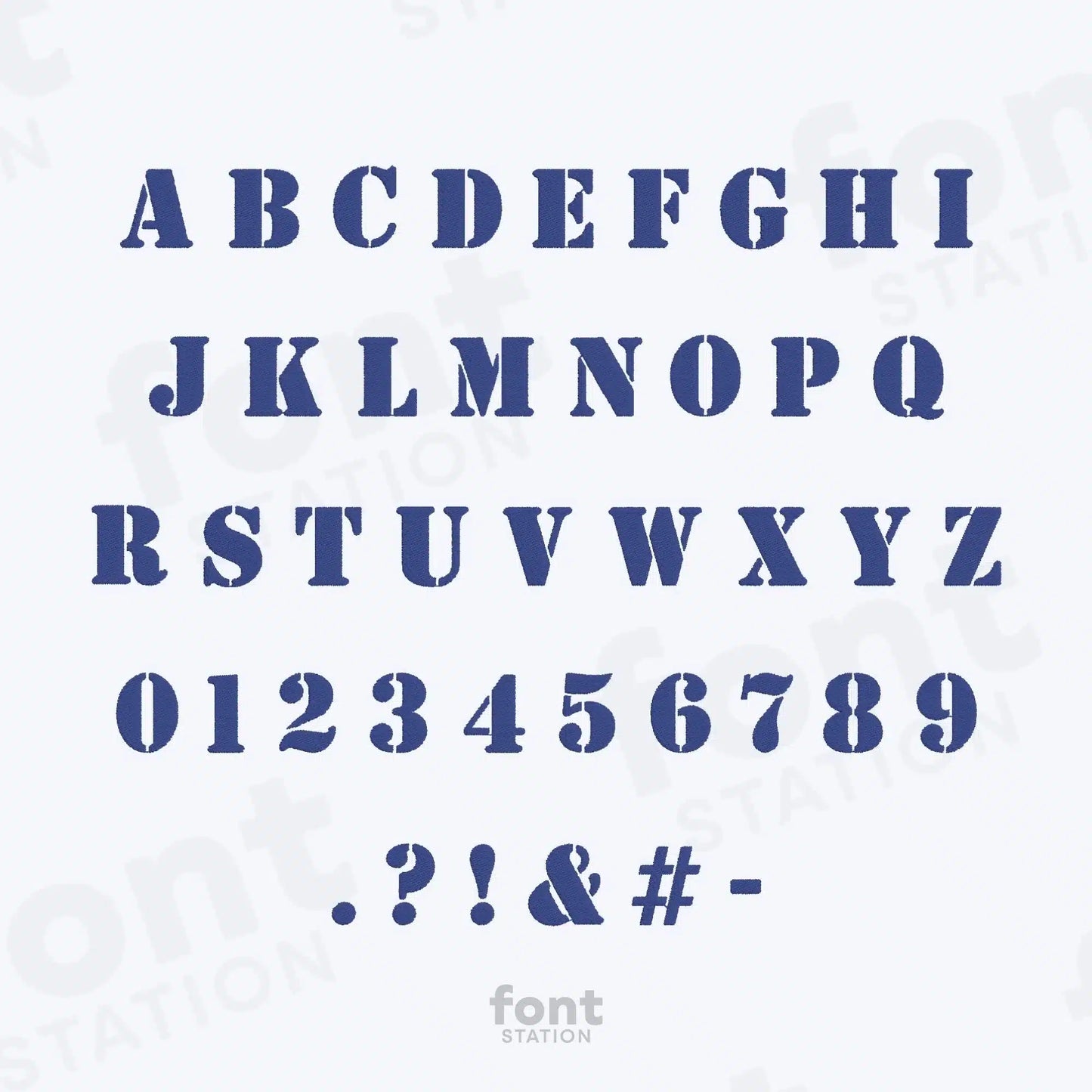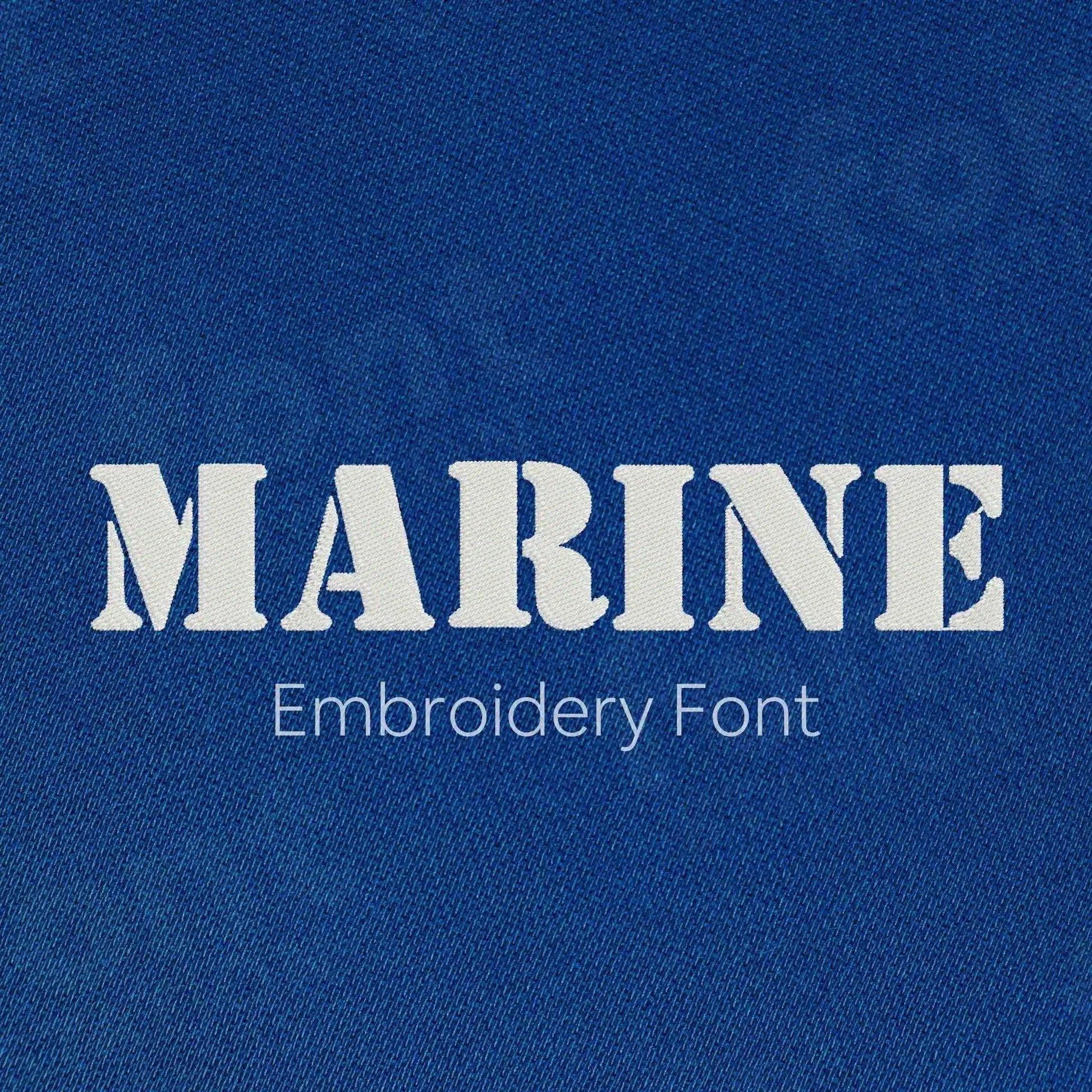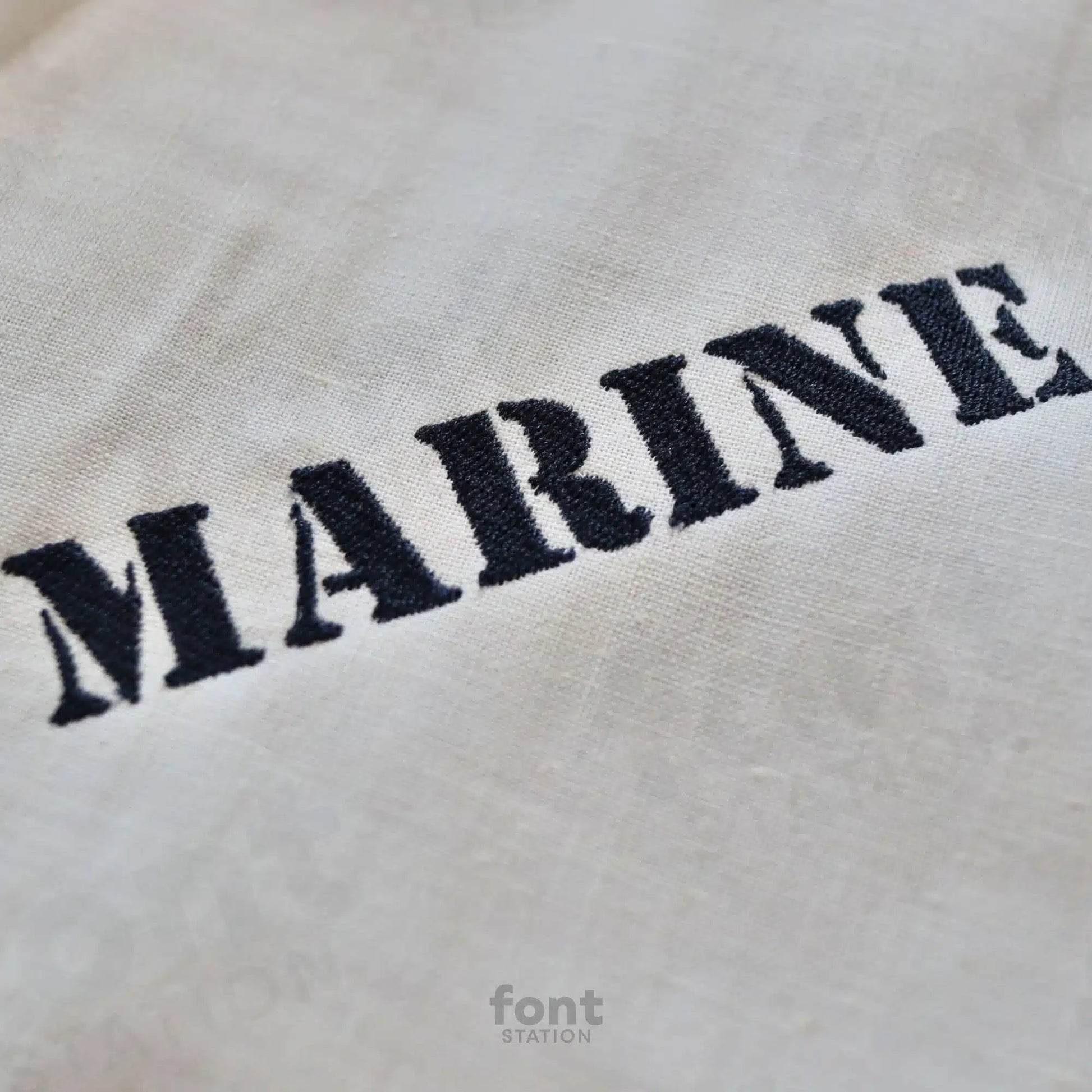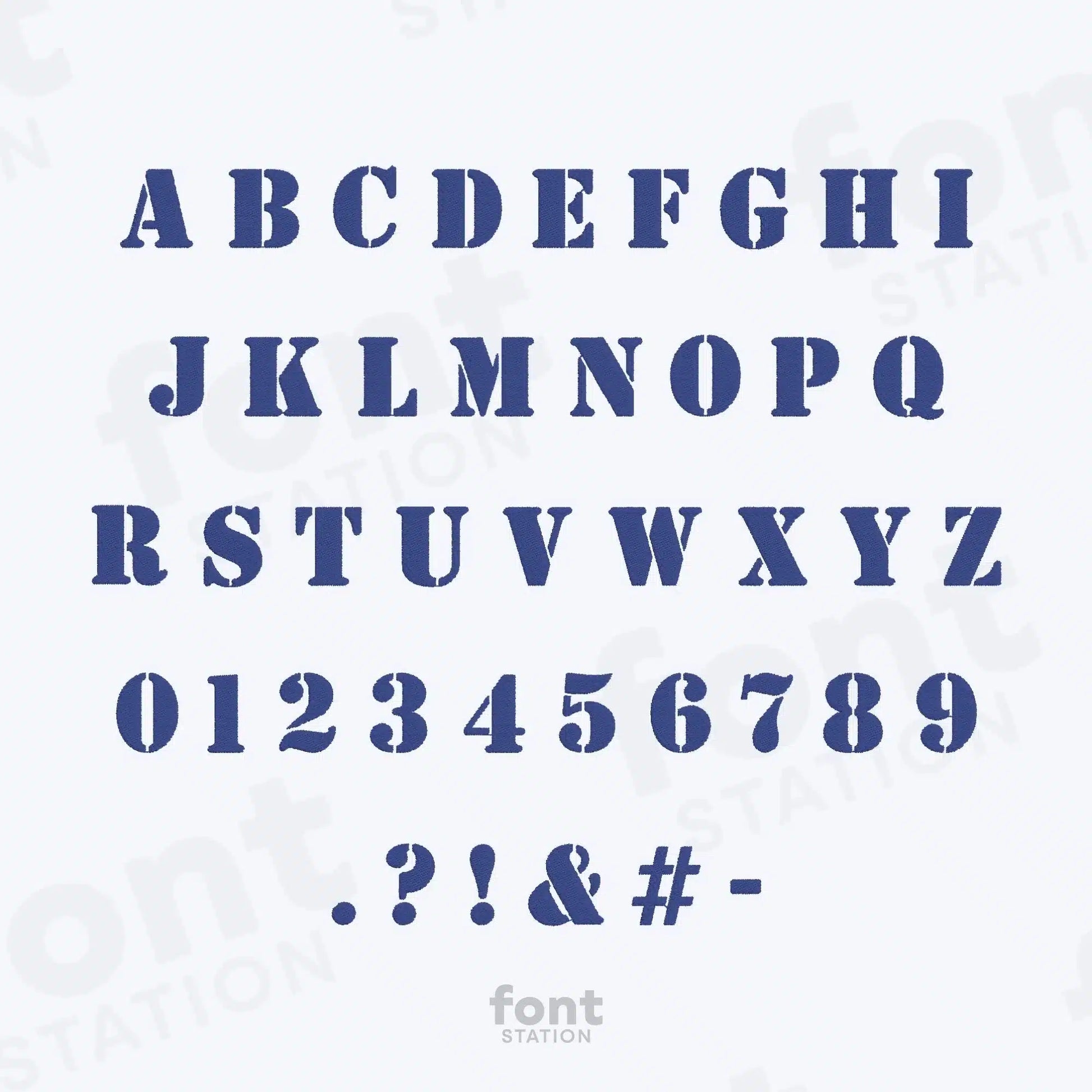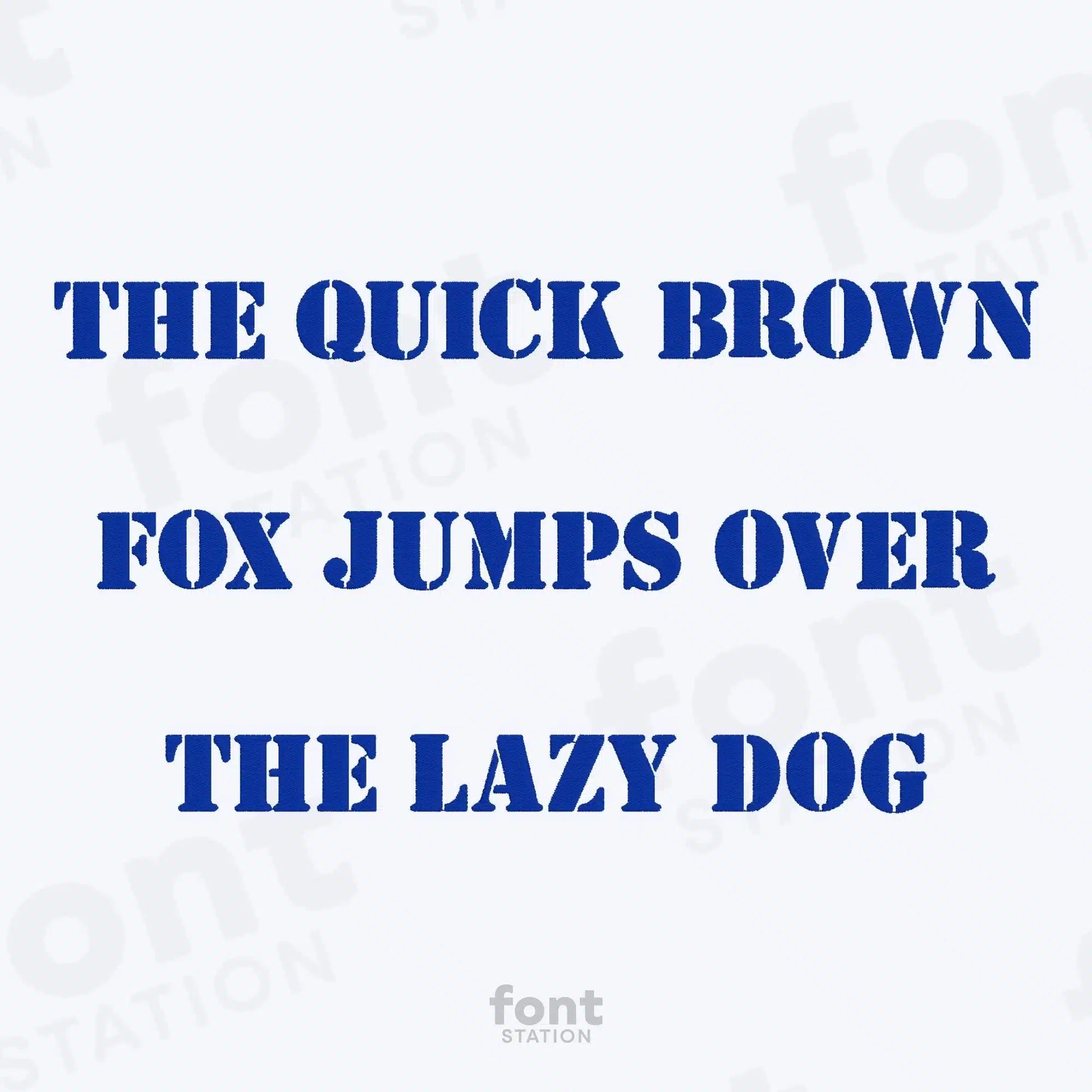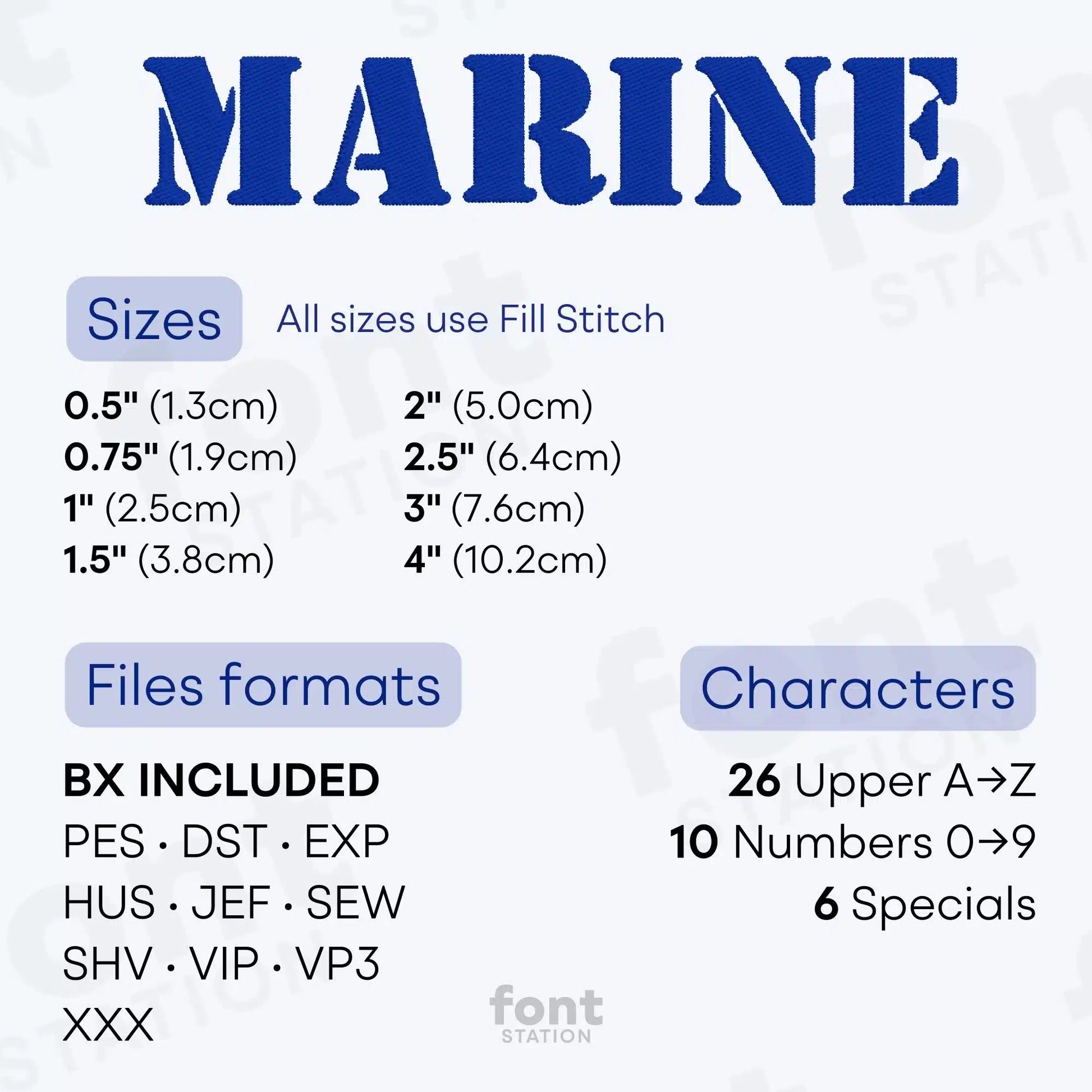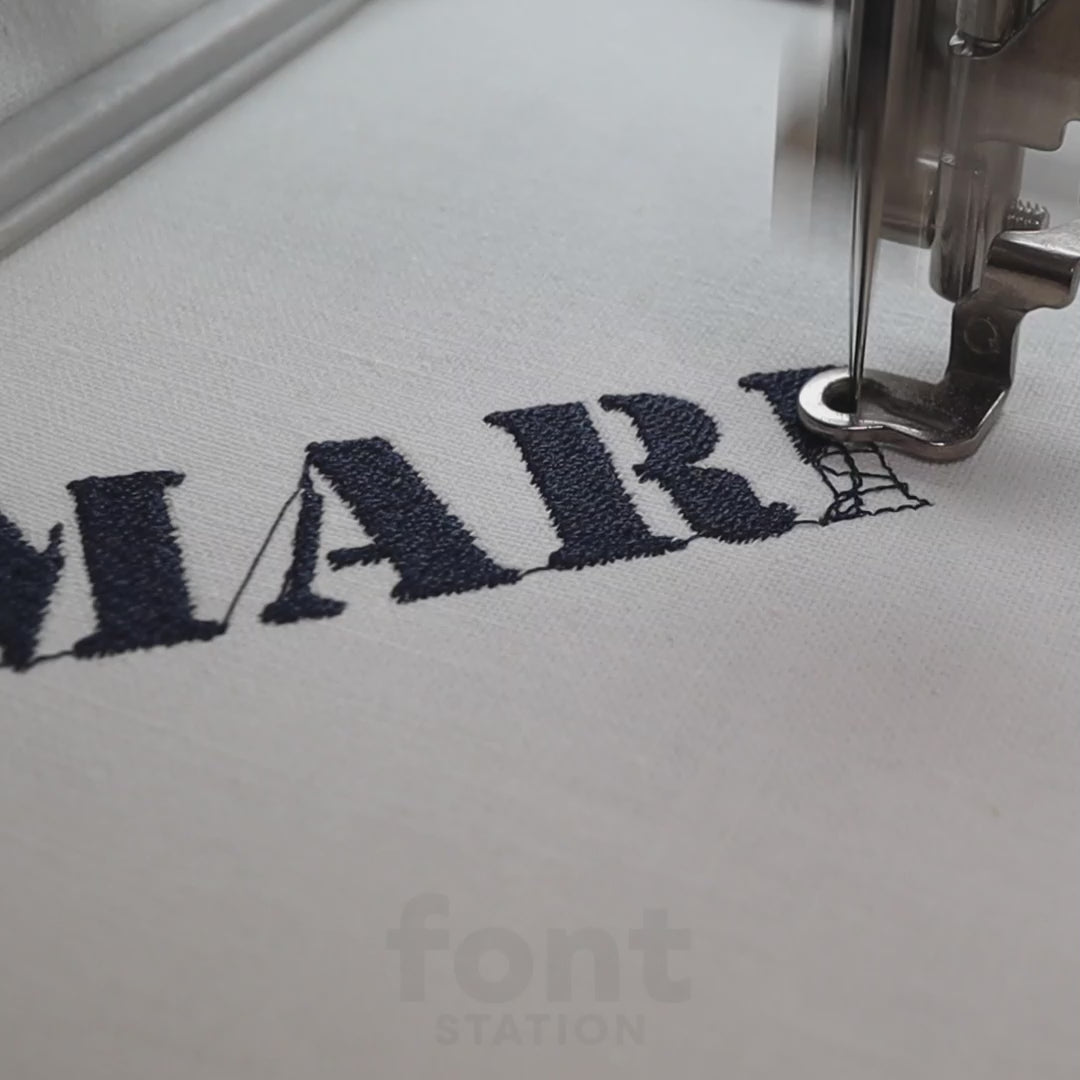
Marine Embroidery Font
Our Marine embroidery font is a bold, stencil-style alphabet that’s perfect for adding a navy or military-inspired look to your projects. These machine-ready letters stitch beautifully on most fabrics and make a great addition to your embroidery collection.
About the Marine Embroidery Font
Add a bold navy look to your designs with our Marine embroidery font!
Give your embroidery projects a strong, military-inspired feel with our Marine embroidery font. Professionally digitized for clean, precise stitching on most fabrics, this stencil-style alphabet is perfect for nautical, army, or uniform-themed designs. Customers love its crisp, bold look, and we can’t wait to see how you use it!